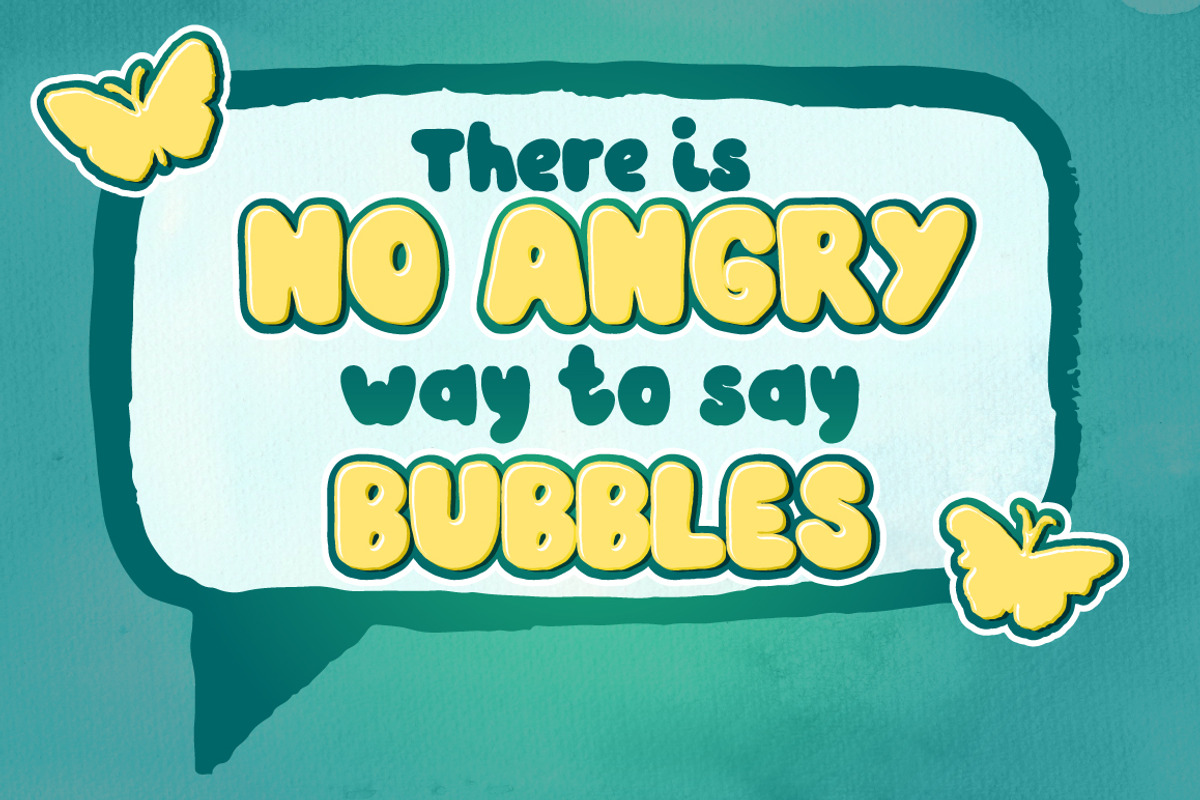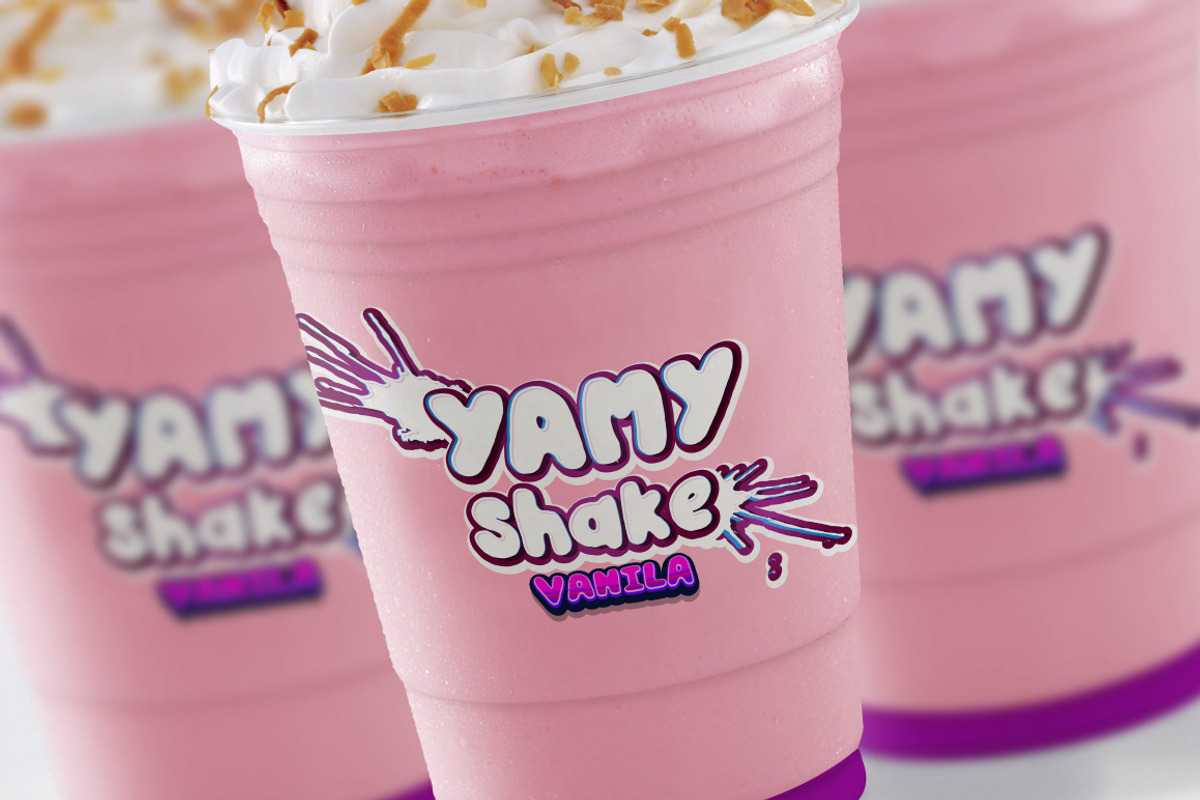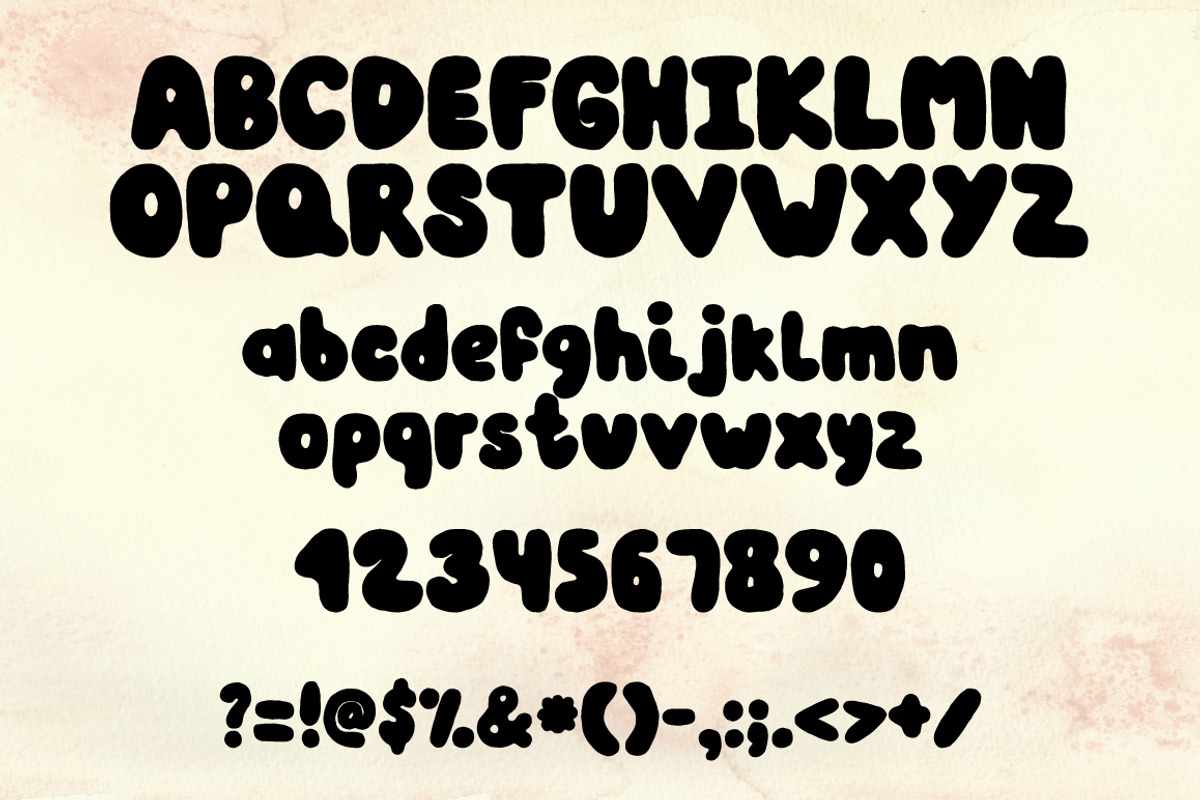
Bubble Gum - hand written font
Bubble Gum - hand written font by Anna Ivanir is a font selected for branding, posters, packaging, typography.
Bubble Gum - hand written font by Anna Ivanir fits naturally into Branding, posters, packaging, typography.